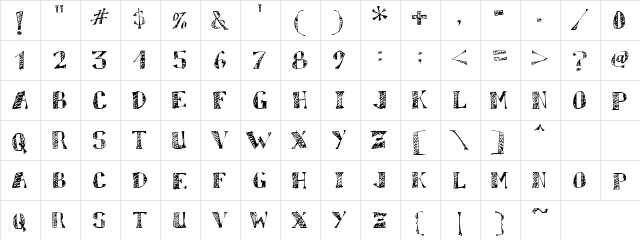
Childish Style Regular
Design Context for Childish Style Typeface
Childish Style trades formality for fun, with bouncy, characterful letterforms that bring warmth and energy to any project.
Great for children's books, toy packaging, family event branding, and casual consumer-facing design.
Font Pairing: Pairs well with a rounded or humanist sans for body copy, maintaining the friendly tone without relying on Childish Style to carry extended reading.
Pro Tip: Avoid using Childish Style for long passages of text — it works best for headlines, labels, and short calls to action.